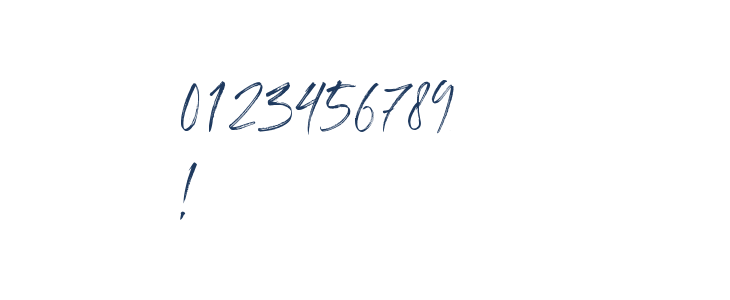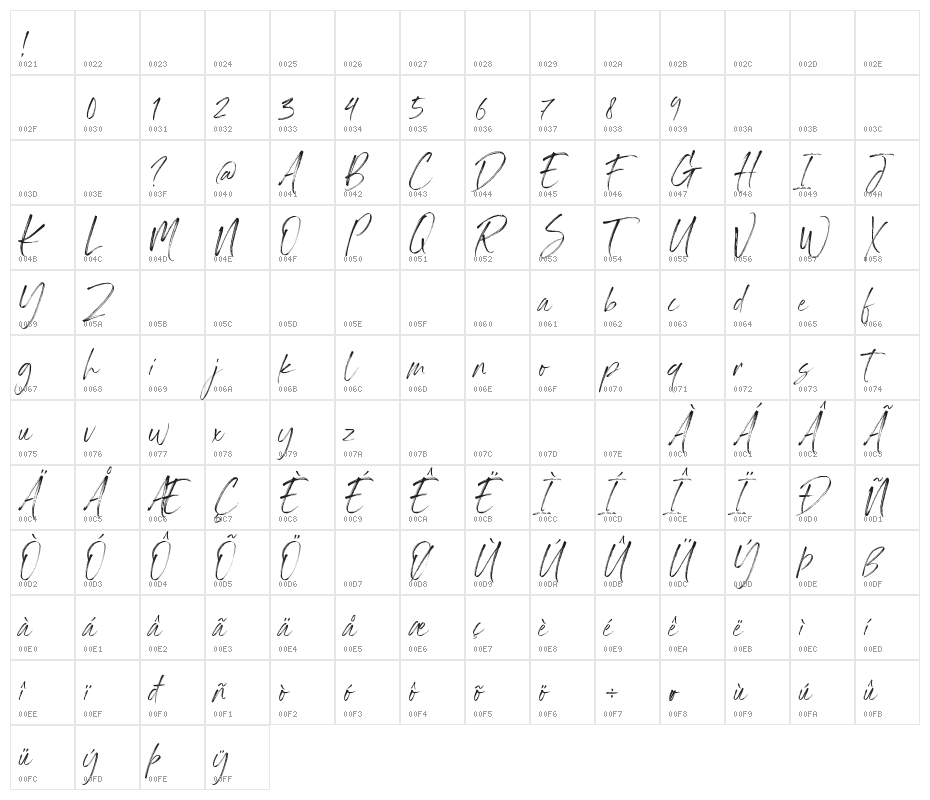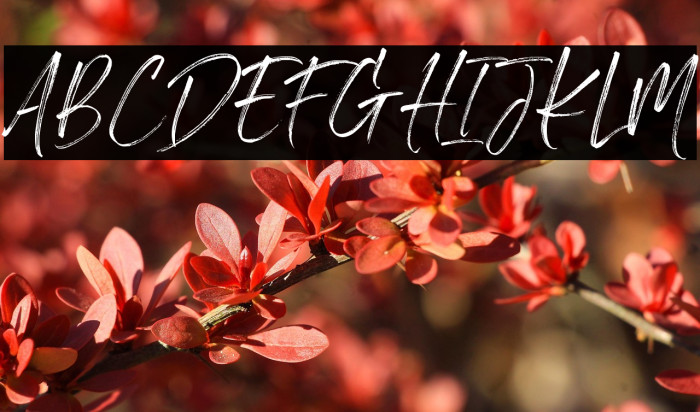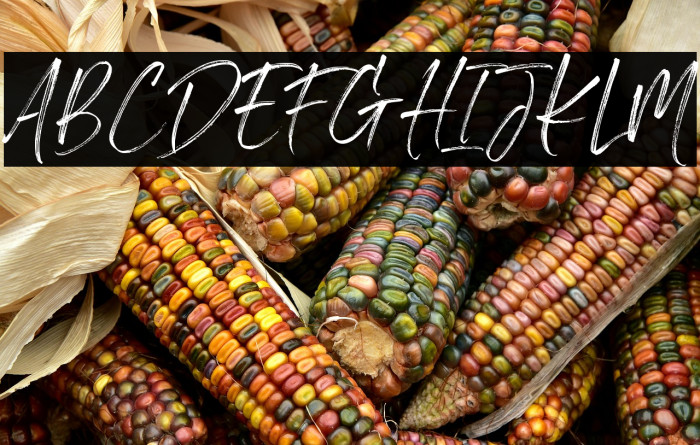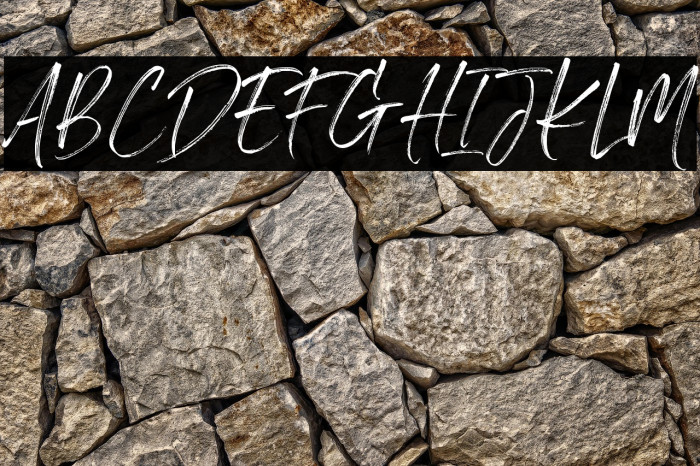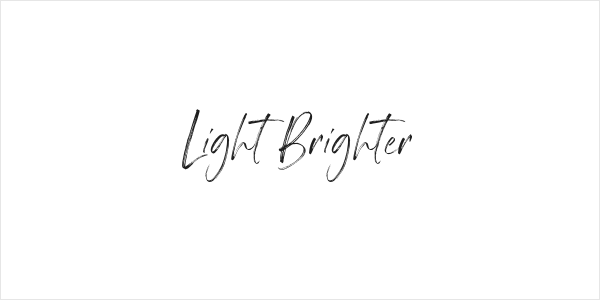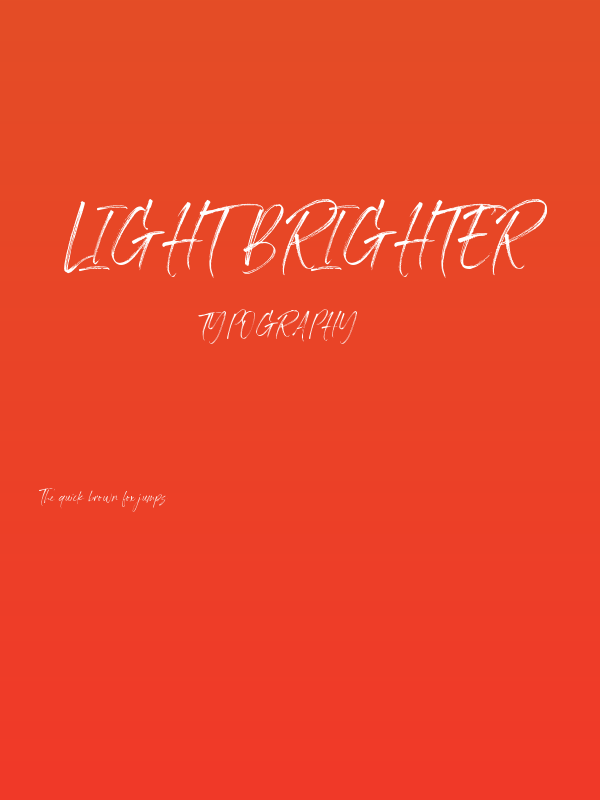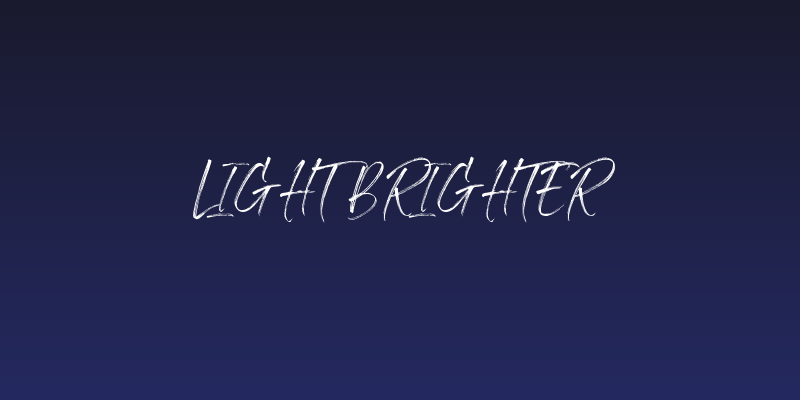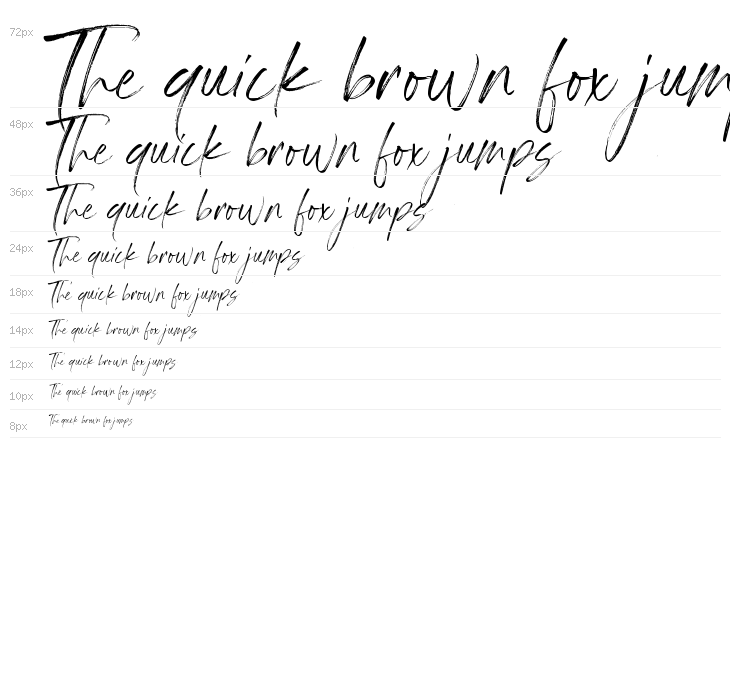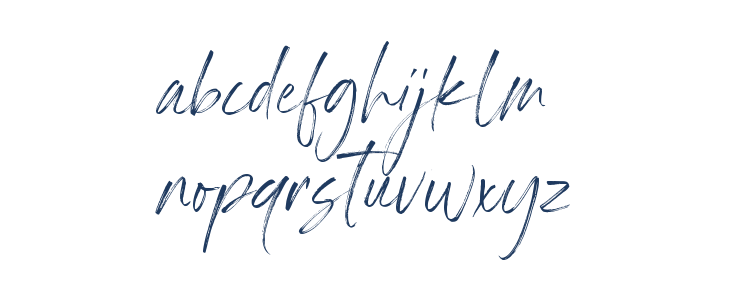
Light Brighter Font
Light Brighter Description
This font features a dynamic and expressive handwritten style, characterized by its fluid and organic strokes. The letters exhibit a natural flow with varying thickness, giving it a lively and energetic appearance. The uppercase and lowercase letters maintain a consistent style, with some letters having unique flourishes that add to the overall charm. The numbers and special characters follow the same handwritten aesthetic, ensuring a cohesive look across all elements. This font is perfect for projects that require a personal touch or a creative flair.